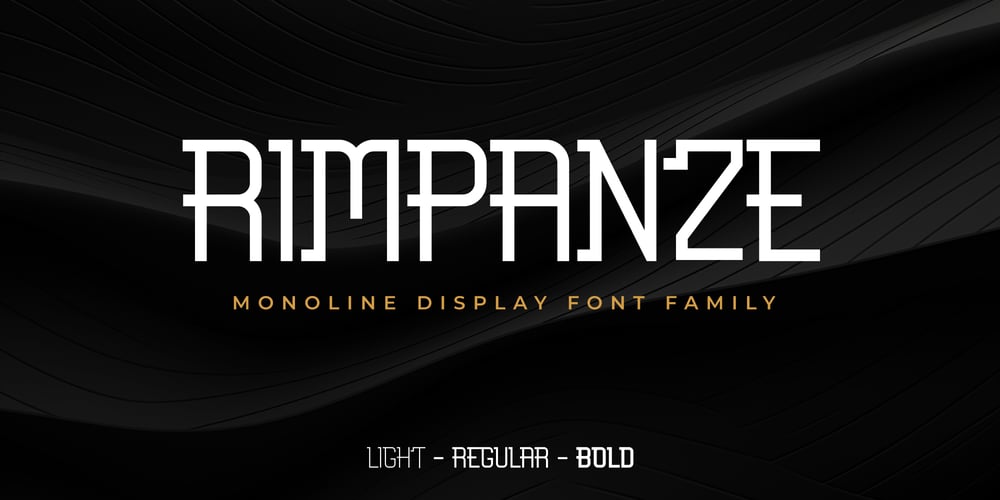
Rimpanze Font Family was designed by Agustian Eko Saputro, Aprilia Nurina Putri and published by Mightyfire. Rimpanze contains 3 styles and family package options. RIMPANZE is a simple, modern yet artistic display font. It comes in strong design, simple but looks elegant. You can use this font in movie title, flyer, technology, poster, cover book, title, headline, card, logo, magazine, banner, or even large-scale artwork. RIMPANZE has light, regular and bold versions.